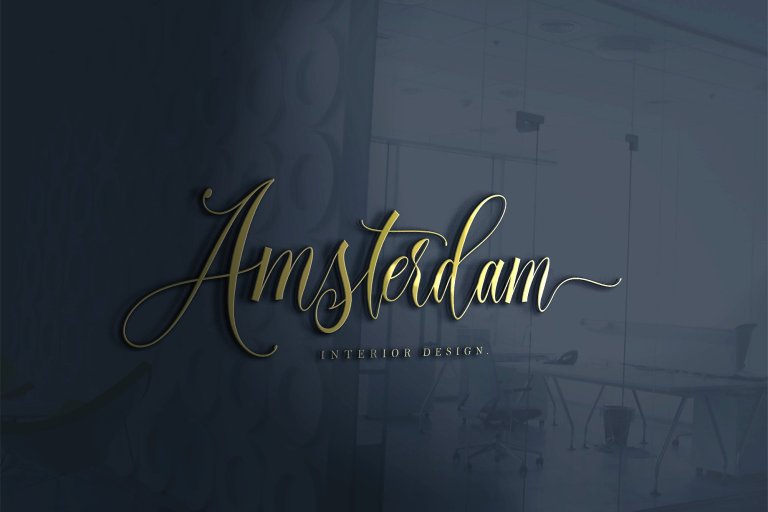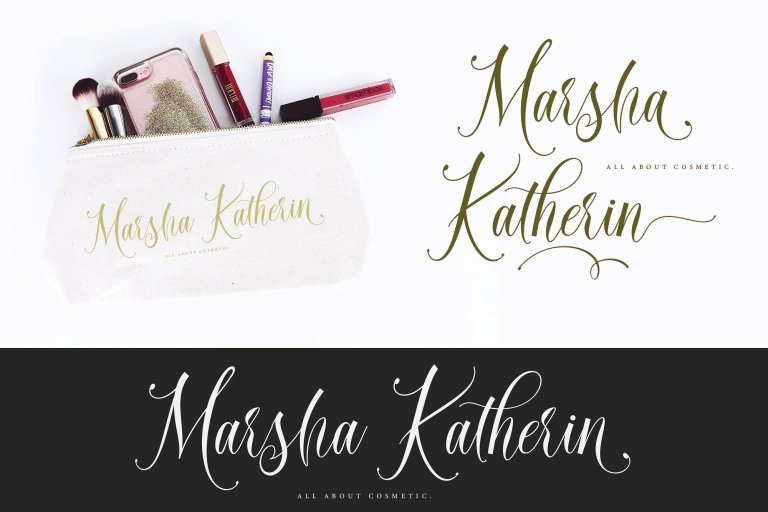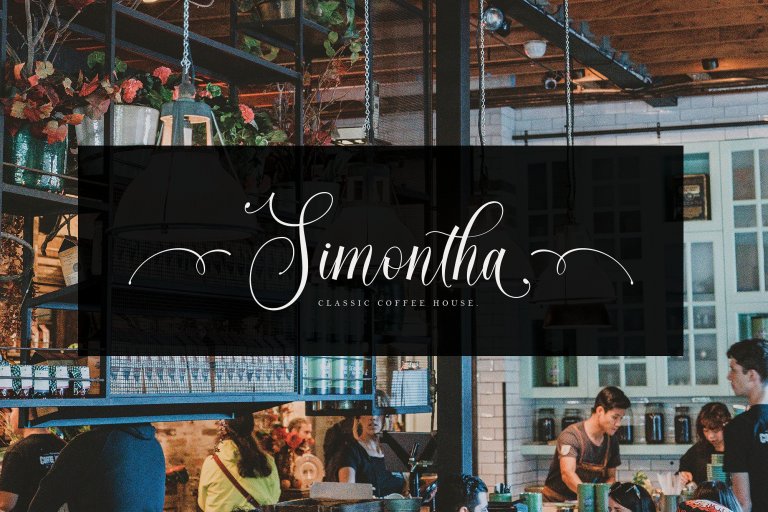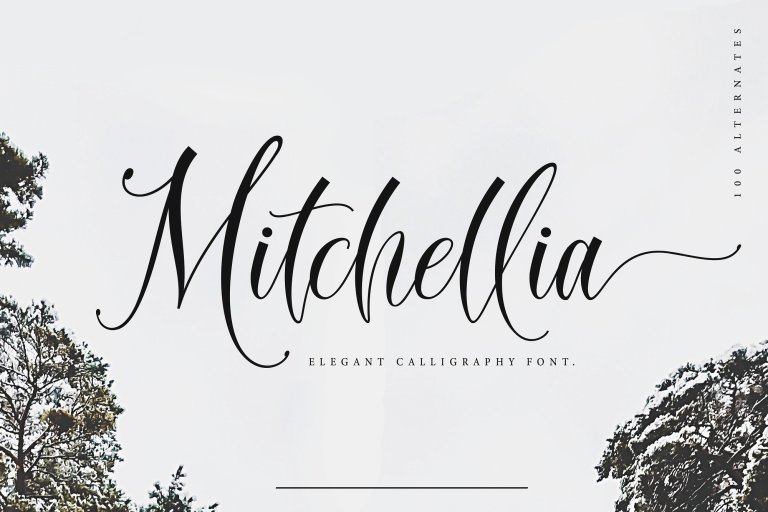
Mitchellia Script Font
Mitchellia – is a elegant calligraphy font created by sizimon. Mitchellia – designed to convey elegance and style. It is slender, feminine and friendly. Mitchellia is perfect for fashion, e-commerce brands, trend blogs, or any business that wants to appear classy and chic.